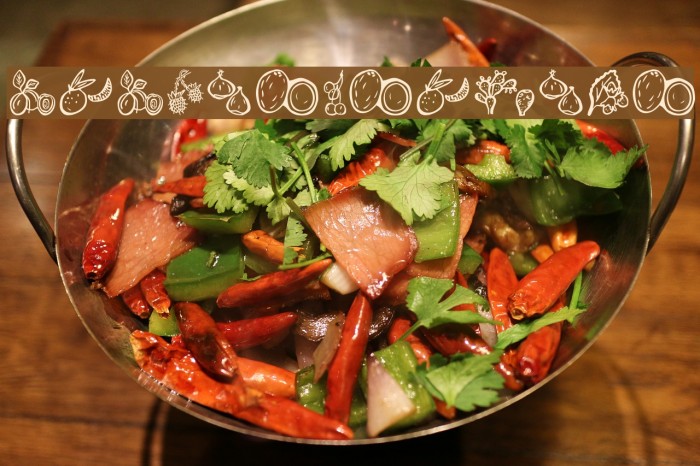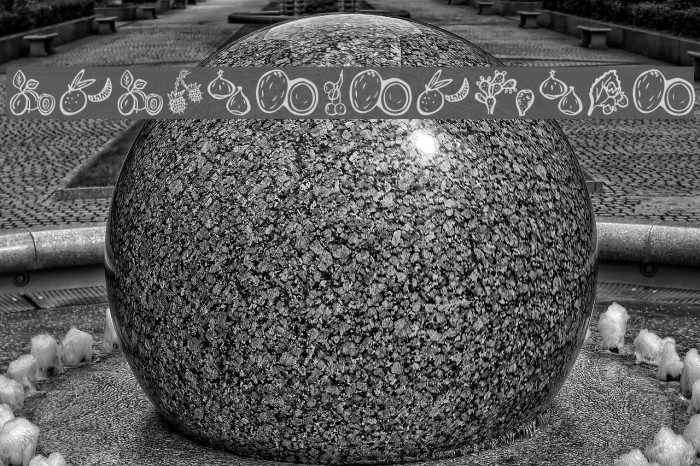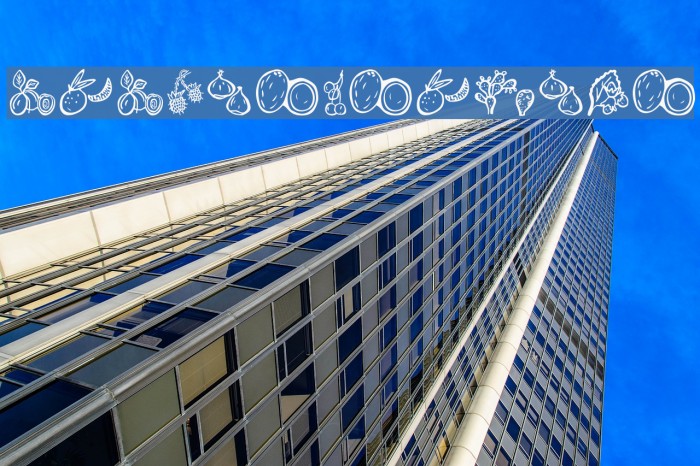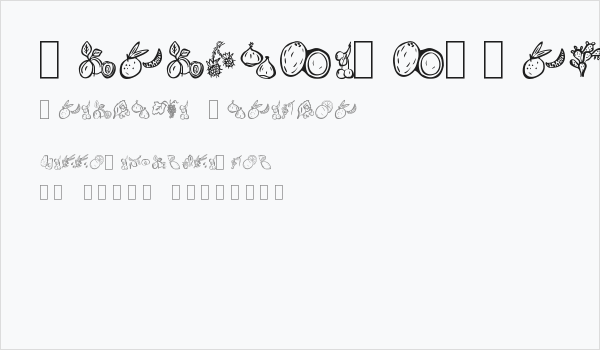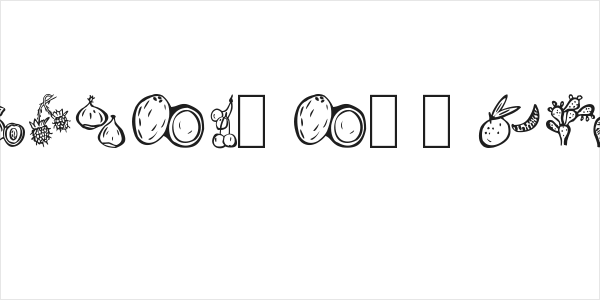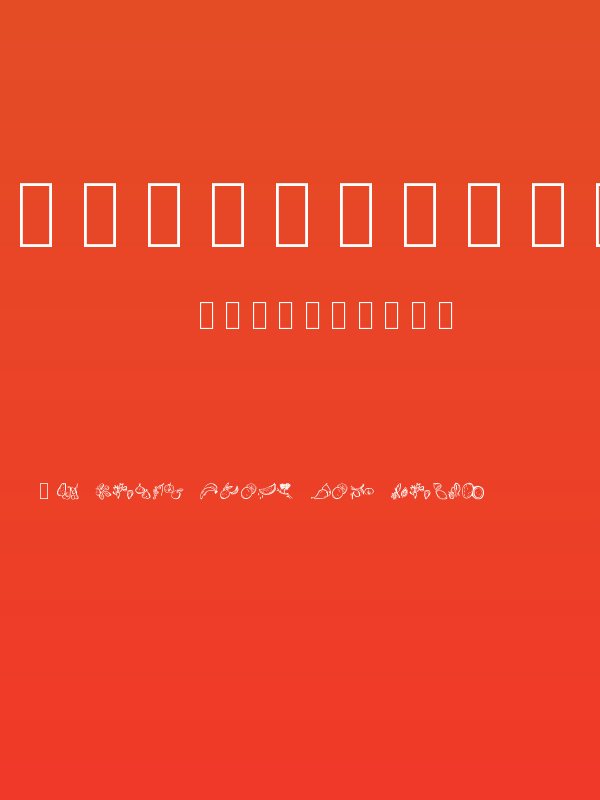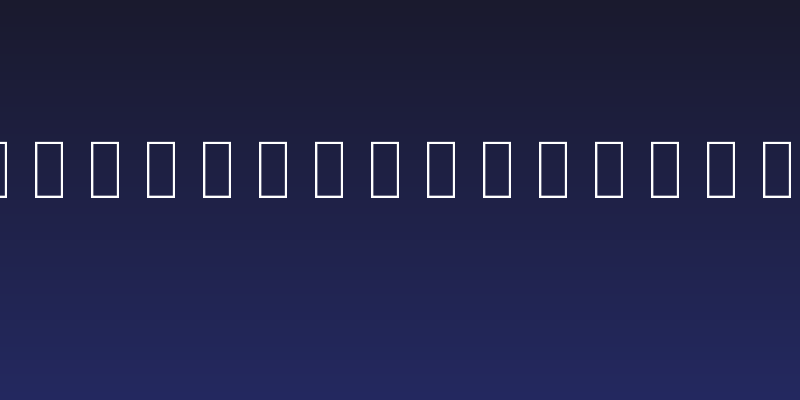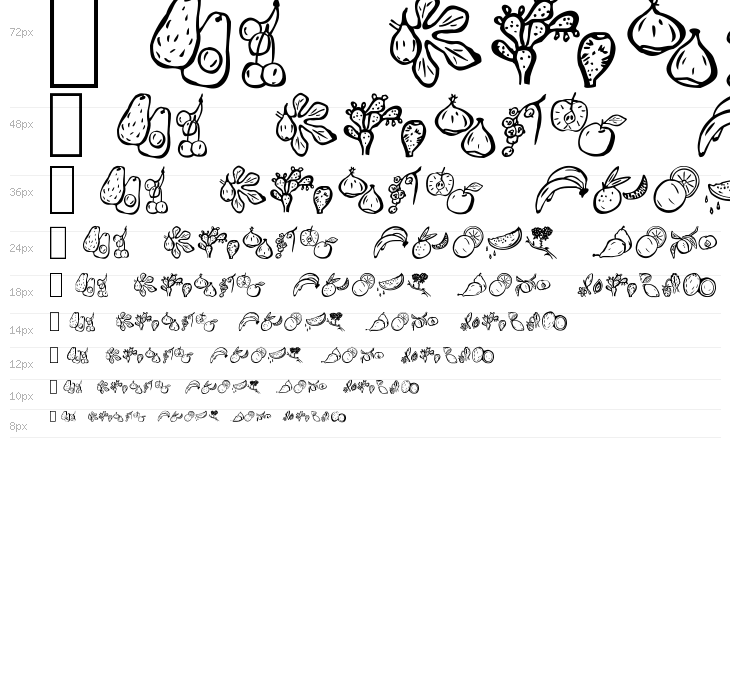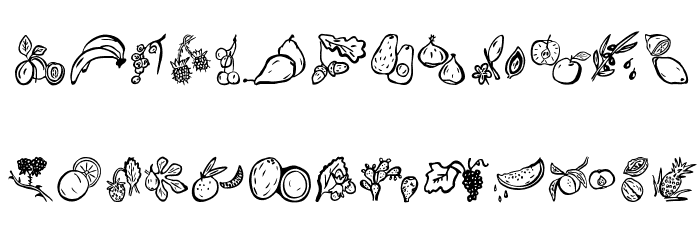
Paradise-s-Fruits Font
Paradise-s-Fruits Description
A decorative font featuring hand-drawn fruit illustrations for each character, with detailed line art and organic shapes. The glyphs are unique fruit icons rather than traditional letterforms.
Overall StyleDecorative, Hand-drawn, Playful
Use CaseLogos, Decorative headings, Themed graphics
Proposed ProjectsFood packaging, organic product branding, children's books, farmers market signage, decorative posters.